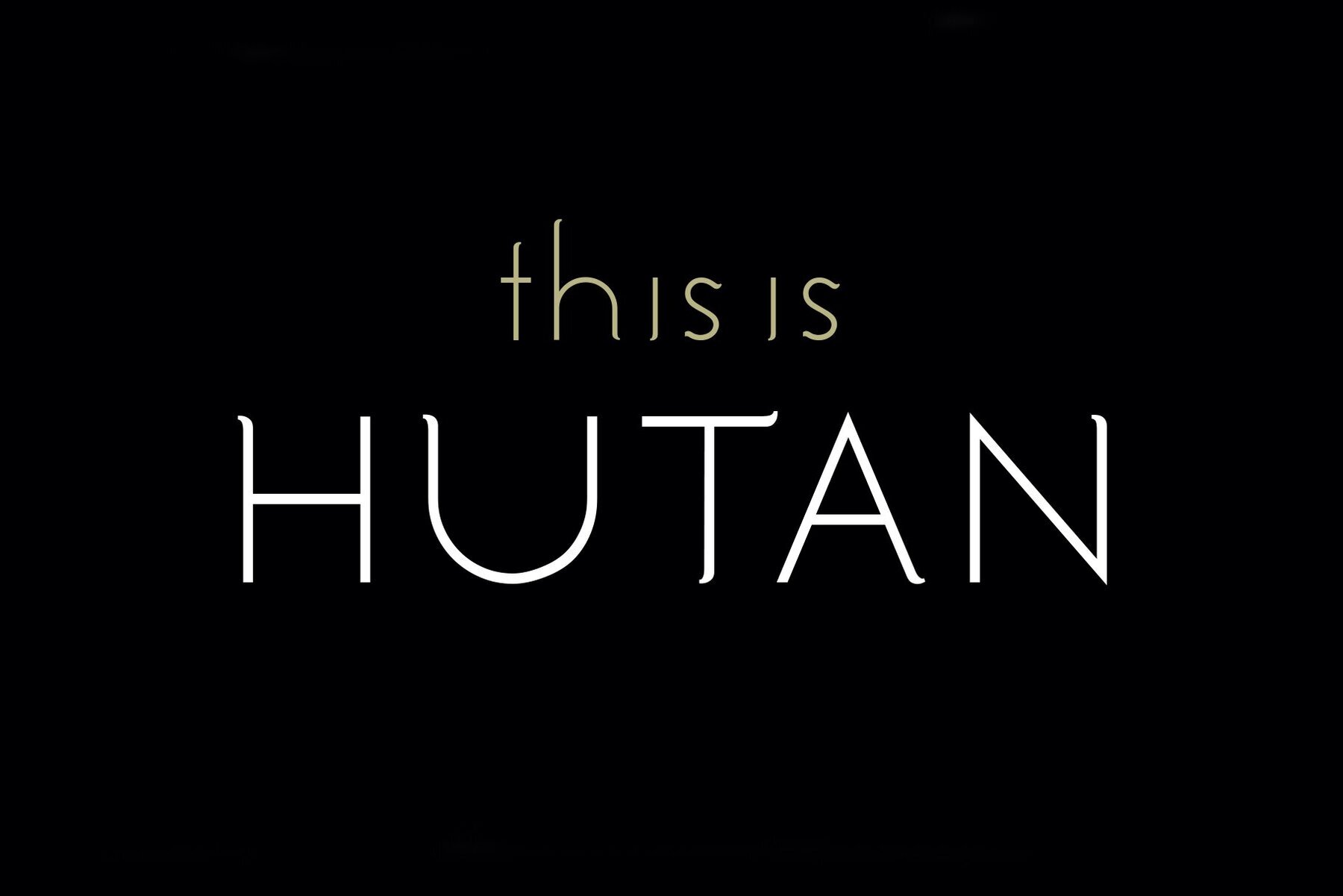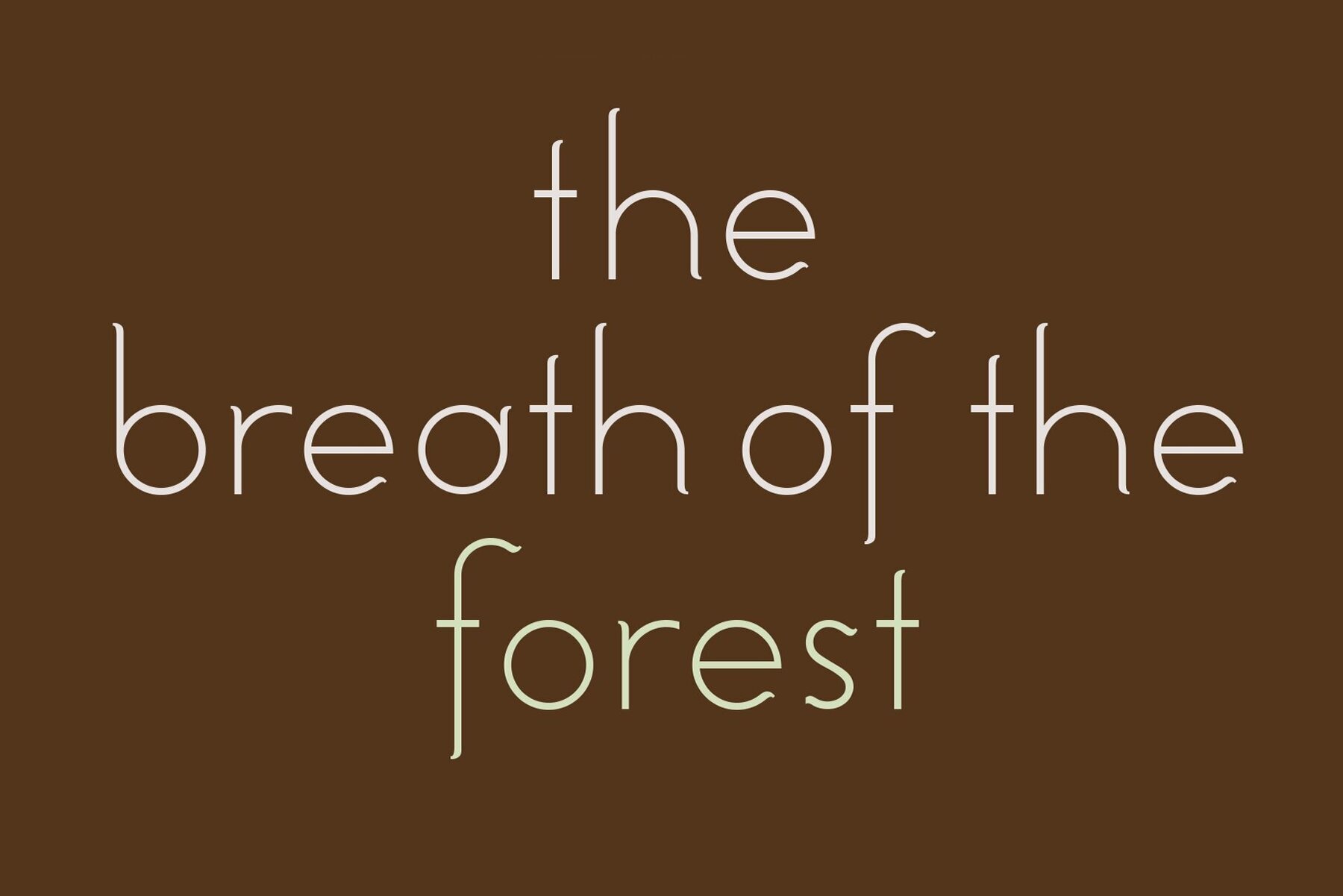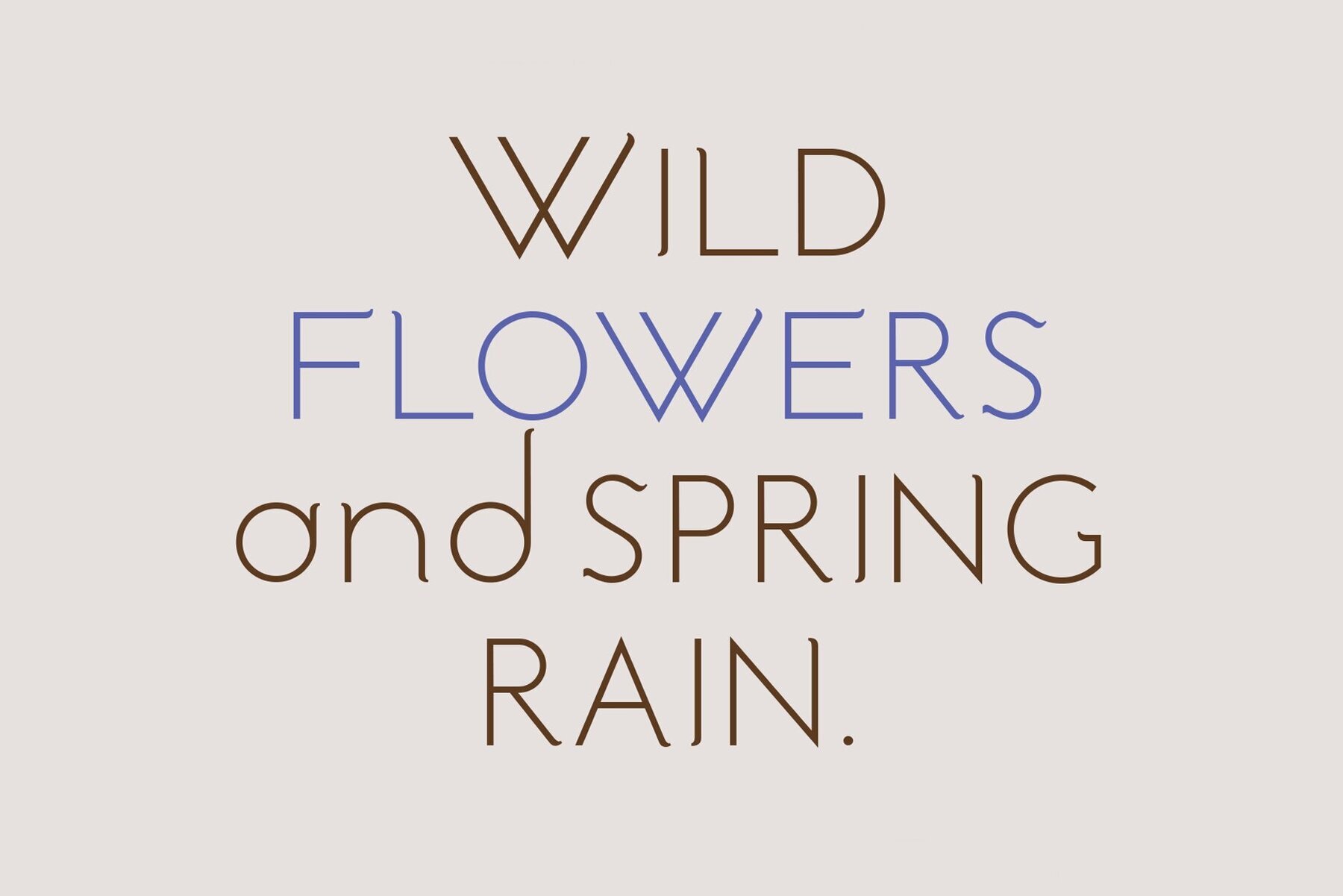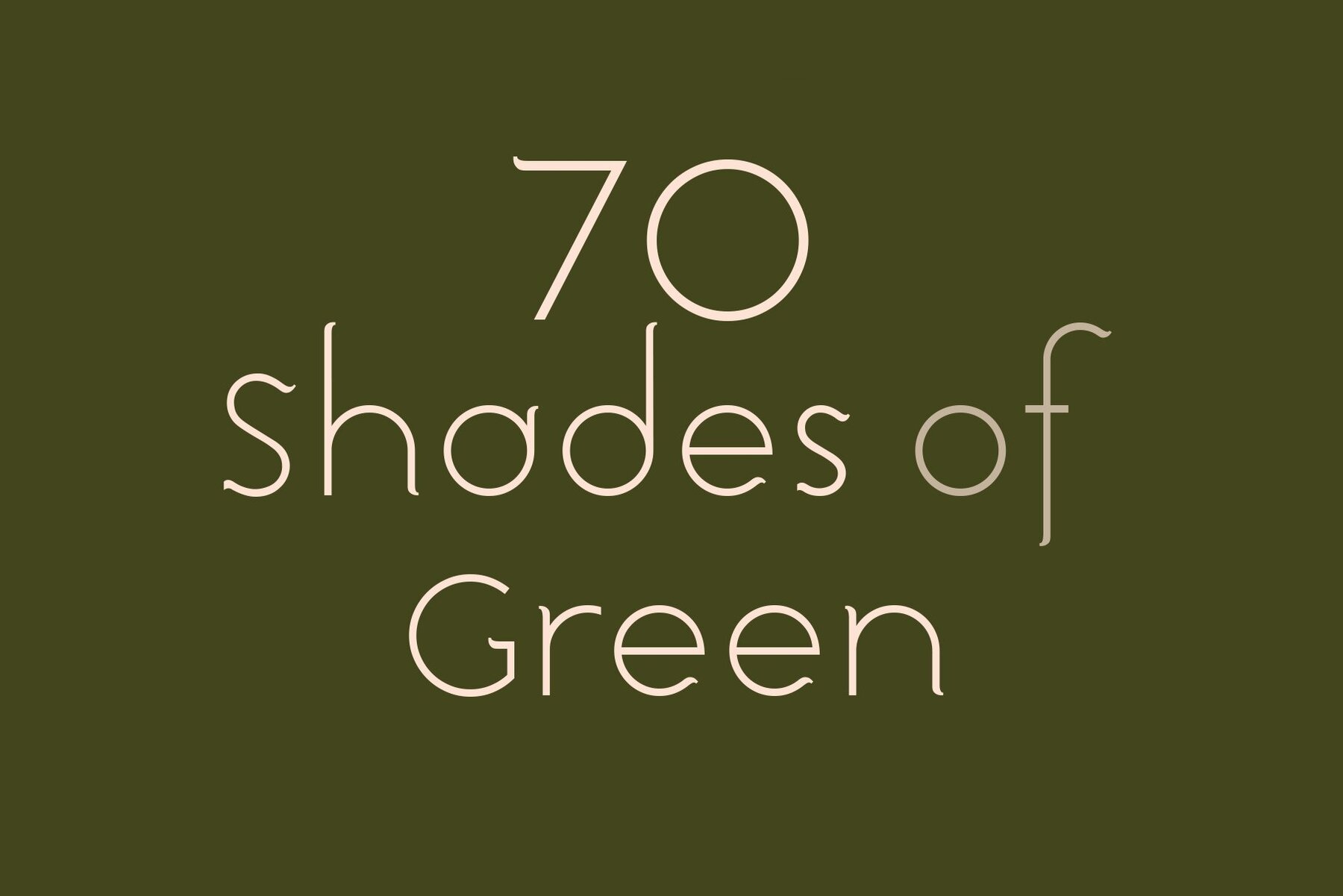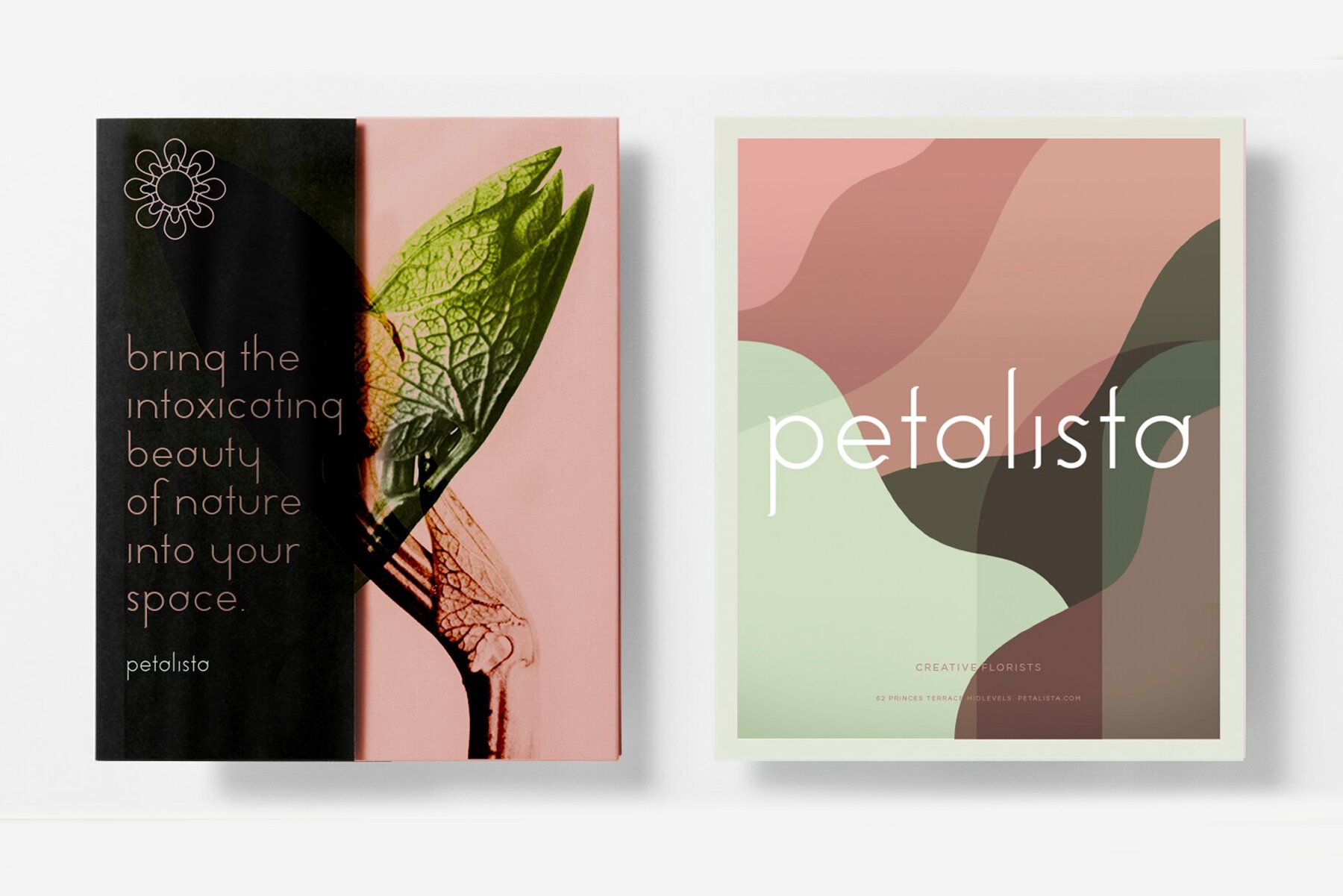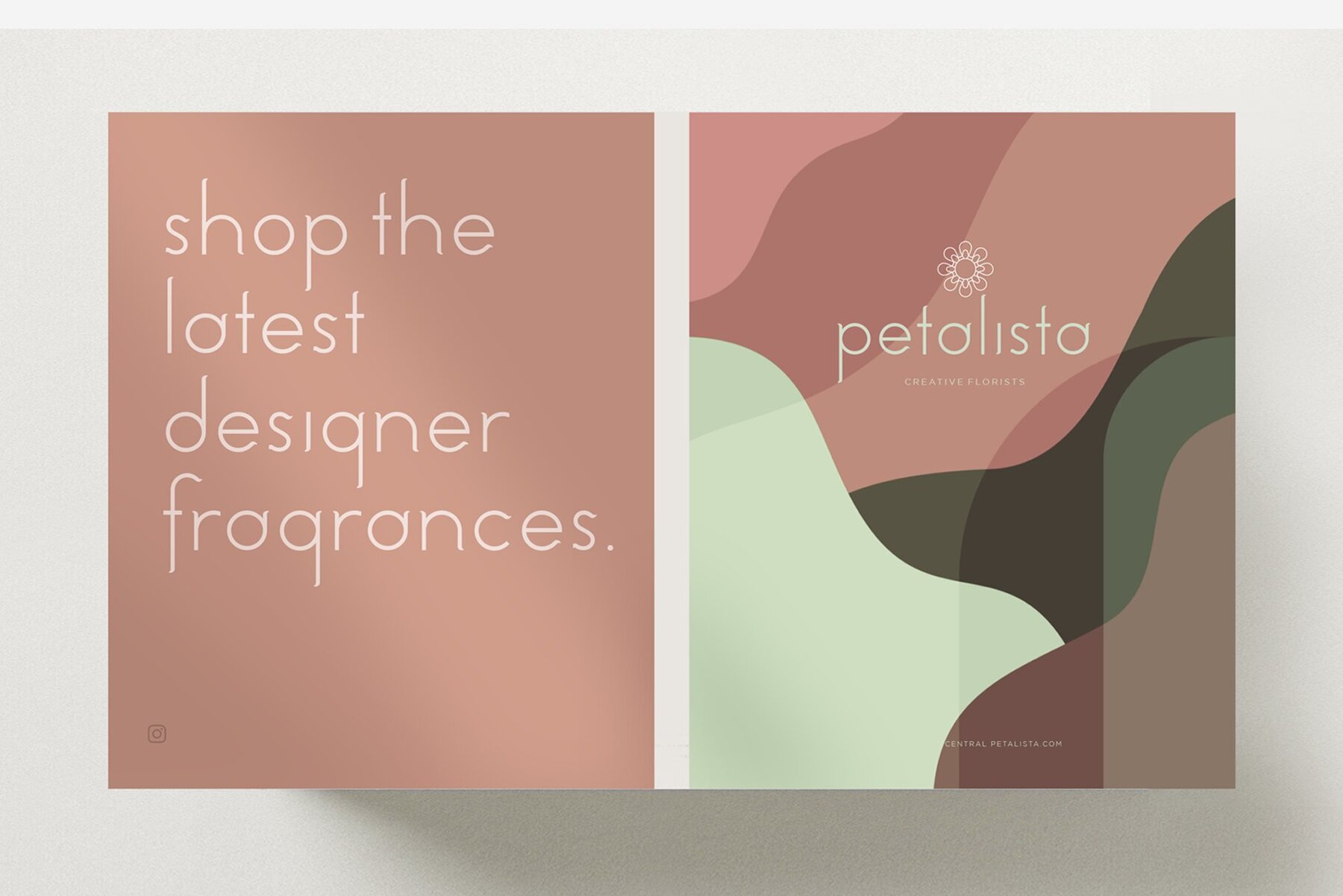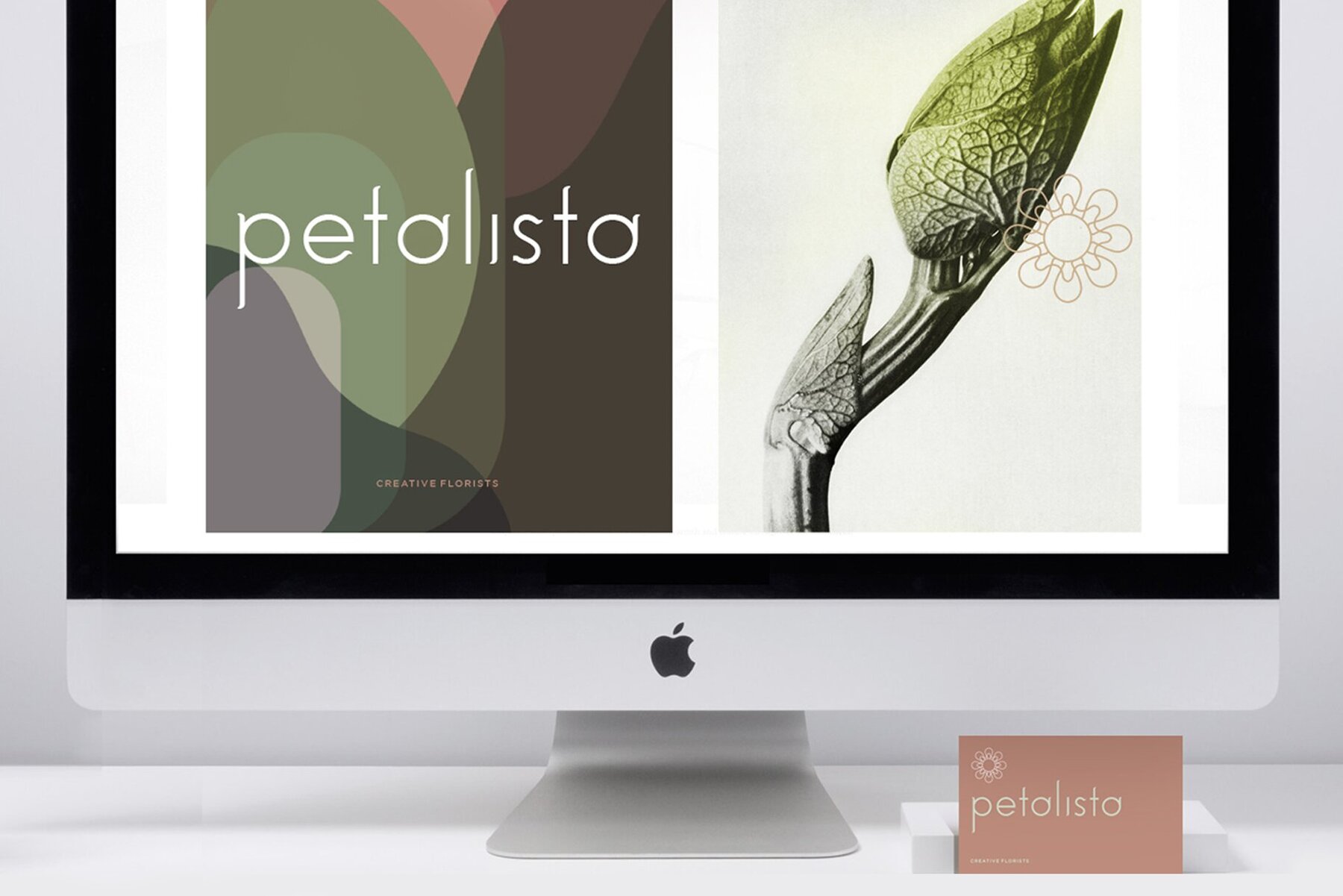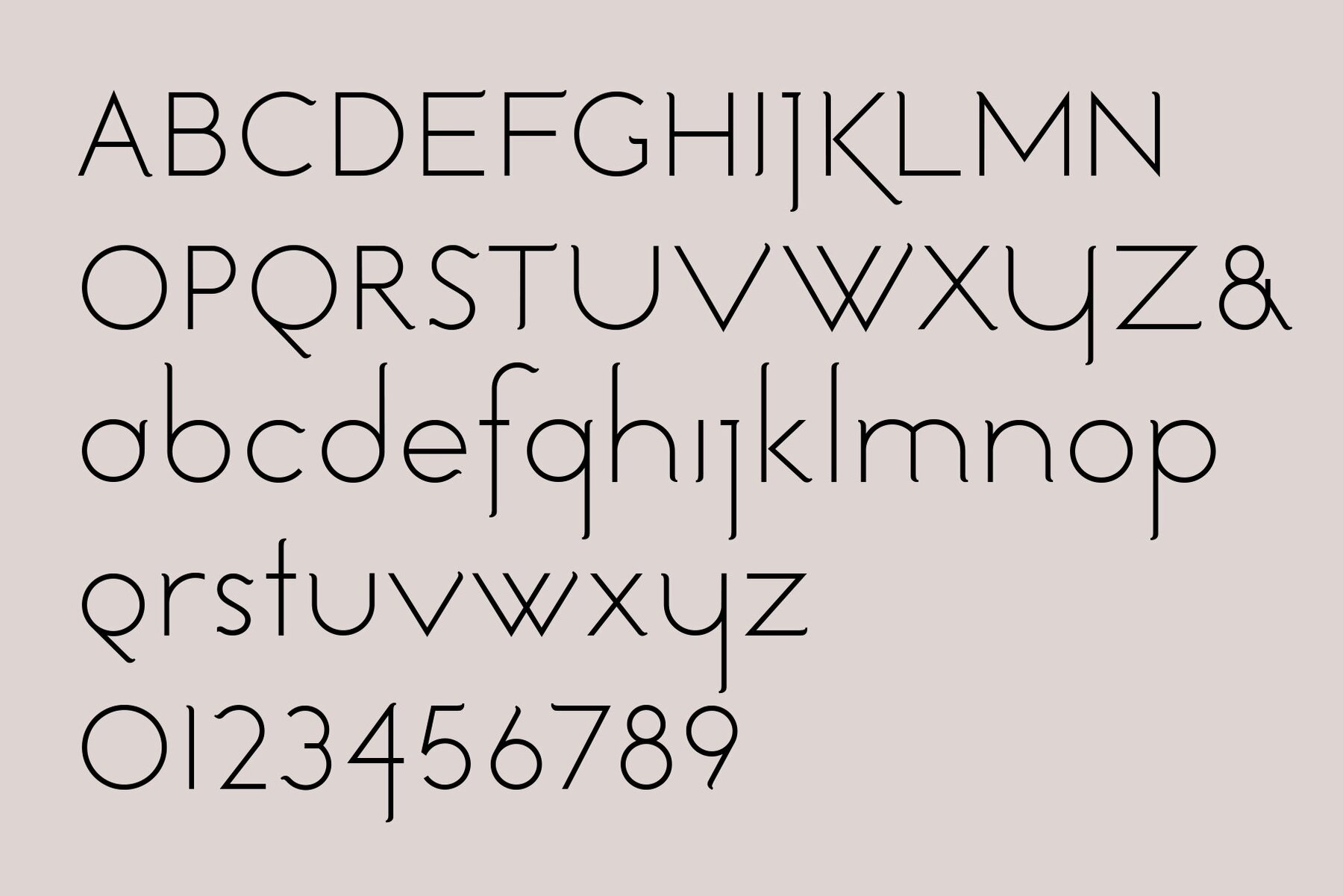
Hutan Font
Hutan Light
Hutan Regular
Hutan, meaning 'mountain' in Malay, is a captivating crossover font crafted by LostandFoundry. This typeface embodies the elegance of a modern sans serif font, enhanced with serif-like details influenced by the lush tropical forests found nearby. Hutan offers a unique, flowing quality, ideal for various design projects such as: Choose Hutan for a contemporary, clean-lined font that exudes sophistication and chic style. Hutan is available in two weights and supports French, German, and other European languages.Hutan: A Sleek Crossover Font with Tropical Inspiration
Contemporary Aesthetic